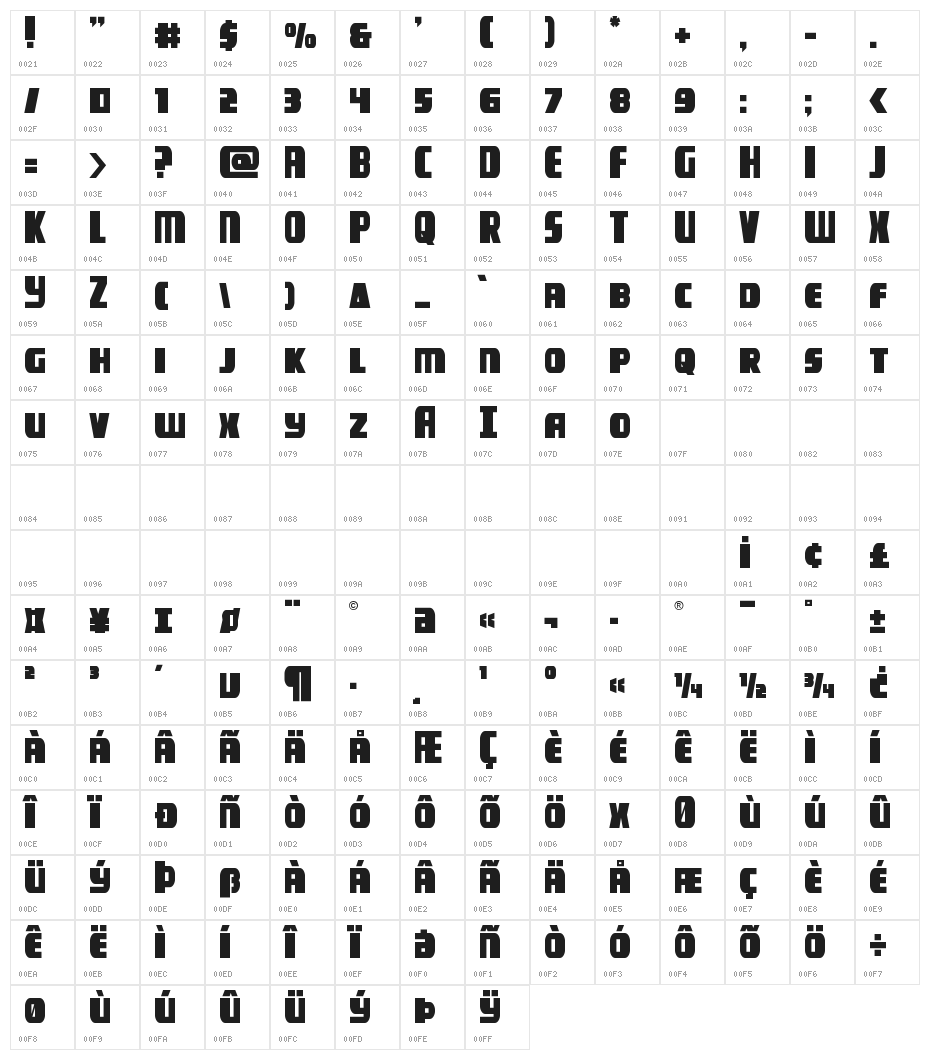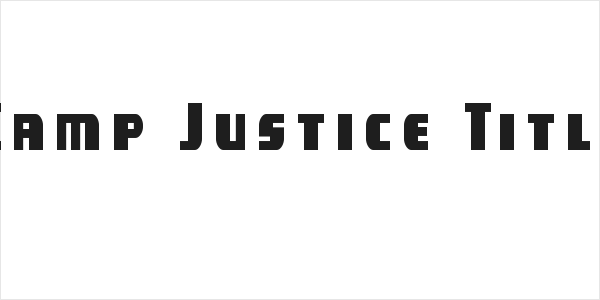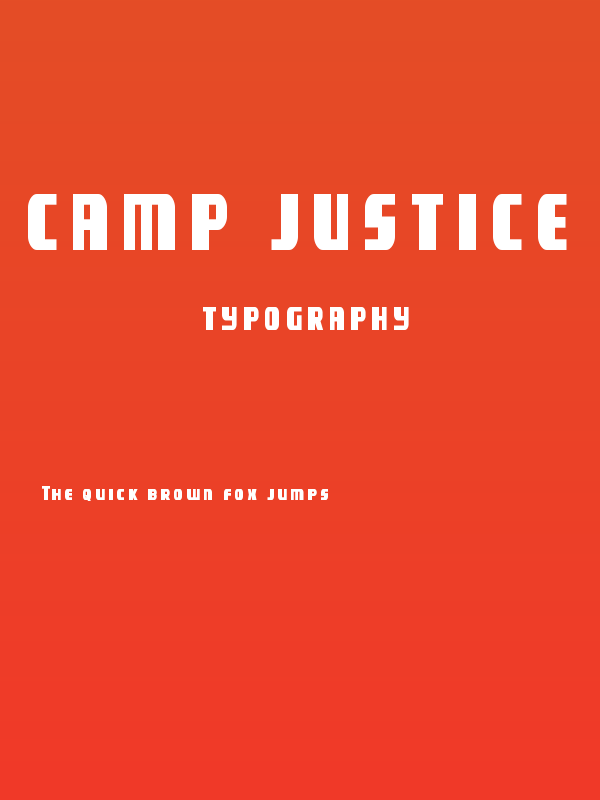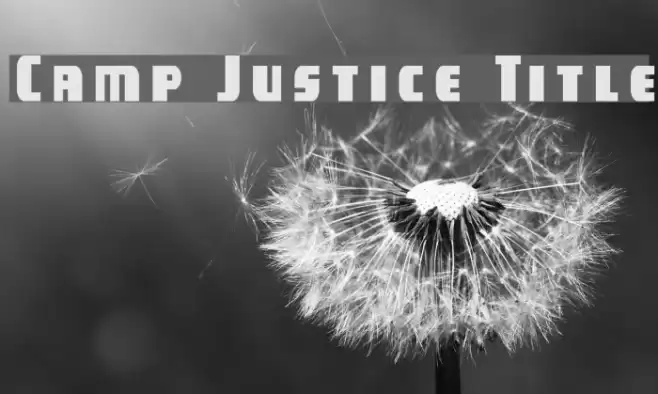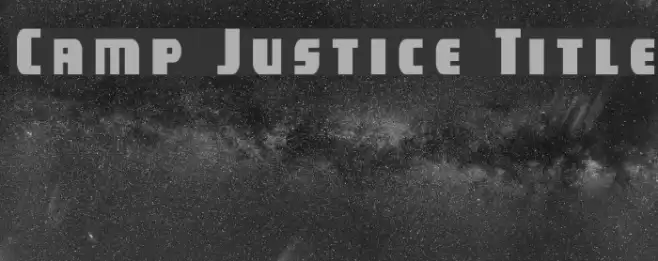
Camp Justice Title Font
This font features a bold and robust design with strong geometric shapes and a blocky appearance. The characters are uniformly wide, giving it a monospaced feel, although it is not strictly monospaced. The uppercase and lowercase letters maintain a consistent height, contributing to a cohesive and structured look. The numerals and special characters follow the same bold and angular style, ensuring uniformity across all glyphs. This font's design is reminiscent of industrial or military aesthetics, making it suitable for projects that require a strong and impactful visual presence.
| Proposed Projects | Ideal for posters, signage, branding, and any project needing a bold, impactful typeface. |